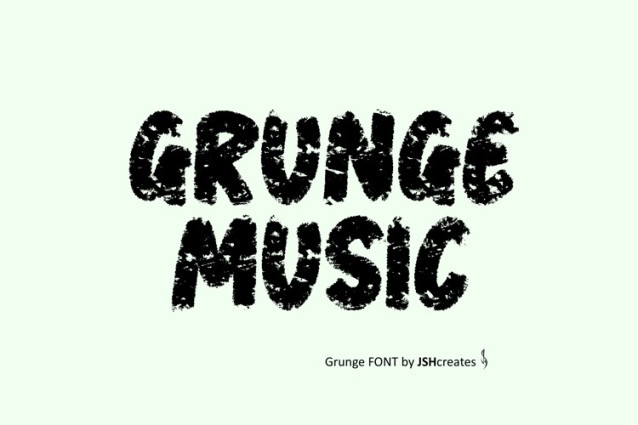
Grunge Music Font
Grunge Music Font a hand-painted brush display font that exudes raw energy and authenticity. With its rough, textured strokes and imperfect edges, this font captures the spirit of grunge, street art, and urban design.
Perfect for posters, album covers, branding, apparel, social media, and creative projects, Rustic Grunge brings a touch of rebellion and handcrafted artistry to any design. Whether you’re aiming for a vintage, industrial, or distressed aesthetic, this font adds the perfect bold and rustic touch.